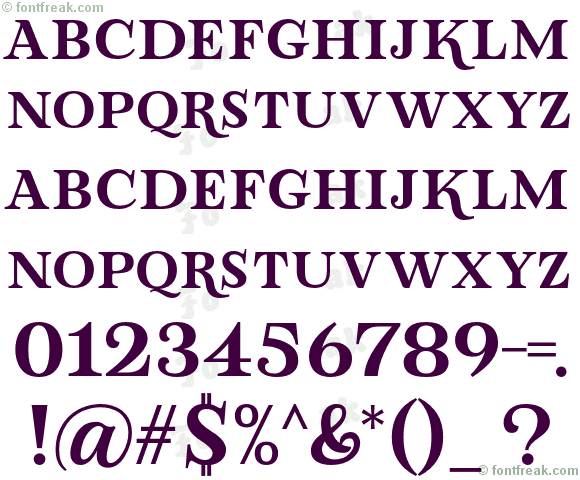
LovaValoveSerif
Lova Valove
About LovaValoveSerif
LovaValoveSerif, designed by Situjuh Nazara, is a distinctive serif font that captures attention with its elegant and timeless aesthetic. This font features a medium stroke weight, offering a balanced contrast that enhances readability while maintaining a sophisticated look. Its generous spacing between letters contributes to a clean and modern appearance, making it suitable for various applications. The font boasts subtle decorative elements, particularly in its serifs, which provide a charming flair without overwhelming the overall design.
This versatile font is ideal for a range of creative projects. It shines in wedding invitations, where its graceful curves and classic style evoke a sense of romance. LovaValoveSerif also works beautifully for book covers, lending an air of sophistication that appeals to literary enthusiasts. Additionally, it can elevate restaurant menus, providing an upscale feel that complements gourmet dining experiences. Graphic designers will find it particularly useful in branding materials, where a touch of elegance can enhance brand identity. Content creators looking to beautify their online presence will appreciate its adaptability in social media graphics and website headings.
What sets LovaValoveSerif apart is its ability to blend traditional serif design with a modern twist, making it a valuable addition to any designer's toolkit. Whether you are crafting a heartfelt invitation or an eye-catching promotional piece, the LovaValoveSerif font free download offers an opportunity to elevate your work with style and elegance.